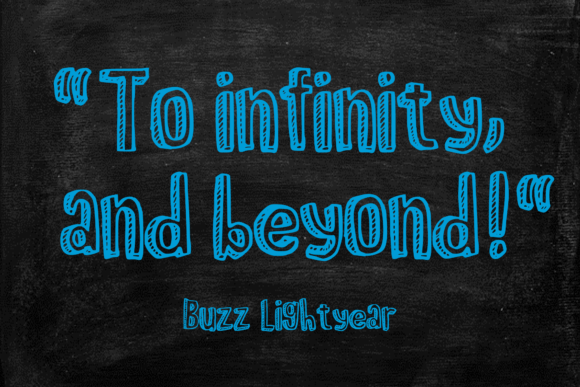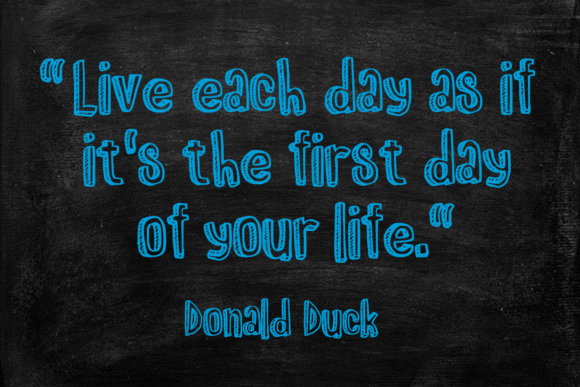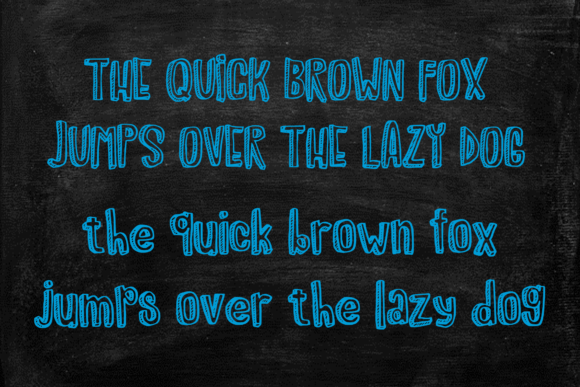
Introduction to Pencil Kid Alternative Font
Pencil Kid Alternative is a fun handwritten display font.
You can use it for anything ranging from t-shirts, kids’ book designs, and greeting cards to stickers and posters, or anything that needs a casual touch Fall in love with its incredibly versatile style and use it to create lovely designs.